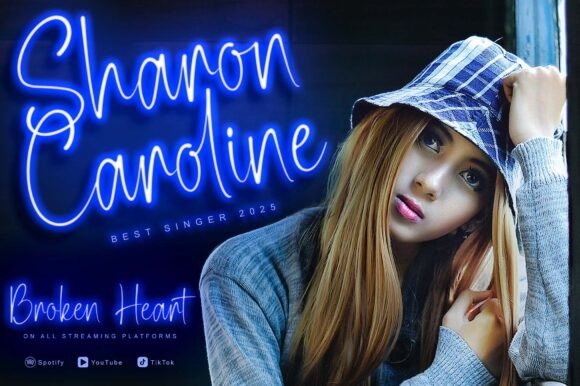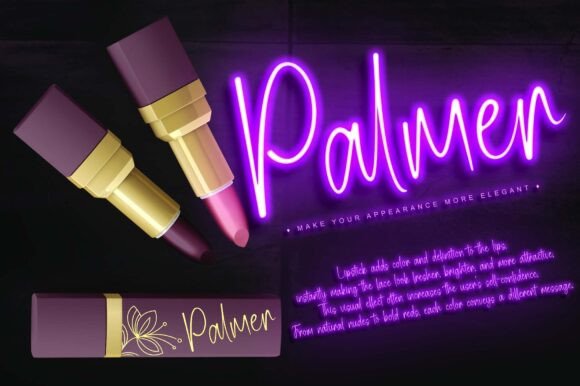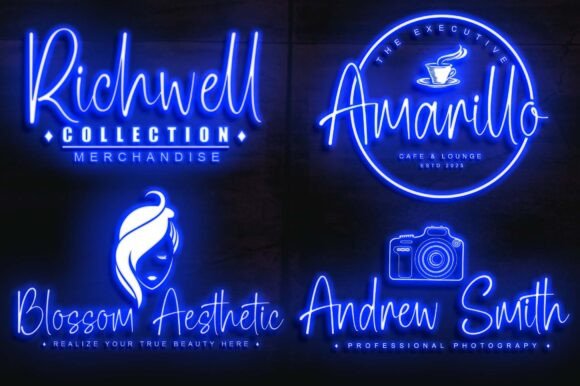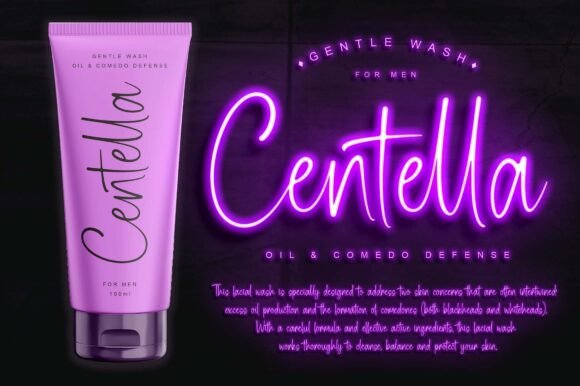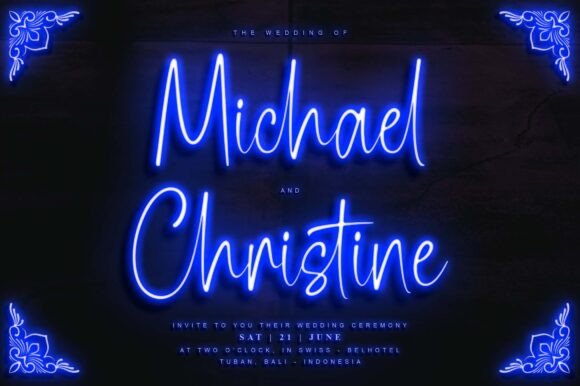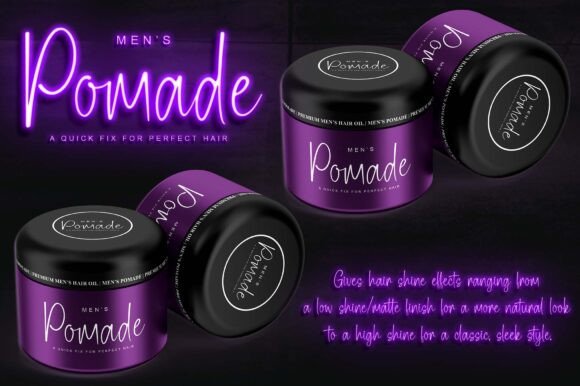
Discover the Perfect Blend of Elegance and Luxury with the Aesthetic Maryland Font
You know that moment when you’re brainstorming a new project and you need that one font that makes it all come together? For designers, finding the right font can be the difference between a good design and a great one. It’s the icing on the cake, the cherry on top, the sparkle that makes it Instagrammable.
| 👤 Author | Aveni Letter Type |
Enter the Aesthetic Maryland Font, a beautifully crafted typeface that adds a touch of luxury and elegance to any project. With ninety-three ligatures, this font is perfect for designers who want to take their work to the next level. Its neat kerning makes it a breeze to use, and its Instagram-worthy aesthetic makes it a must-have for company branding, logotypes, and more.
Aesthetic Maryland Font Features
- Unique Characteristics: Features a unique blend of classic and modern elements, with intricate details and elegant lines that evoke a sense of sophistication and refinement.
- Kerning and Ligatures: Includes advanced kerning and ligature pairs for precise control over letter spacing and improved readability.
Aesthetic Maryland Font Review
I recently had the chance to work with the Aesthetic Maryland Font, and overall, I was impressed with its unique style and versatility. ✨
- Distinctive Aesthetic: The font’s blend of modern and vintage elements gives it a distinct charm that’s perfect for projects that require a touch of elegance.
- High Customization Options: With a wide range of font weights, styles, and sizes, I was able to achieve the desired look for my design without any issues.
- Good for Headings and Titles: The font’s bold and striking nature makes it ideal for headings, titles, and other prominent text elements.
However, there are a few limitations that I encountered during my usage: ⚠️
- May Be Difficult to Read at Small Sizes: While the font looks great at larger sizes, it can become a bit challenging to read at smaller sizes, which might be a concern for some designers.
- Limited Support for Non-English Characters: I noticed that the font doesn’t support a wide range of non-English characters, which might be an issue for designers who work with multiple languages.
Overall, I think the Aesthetic Maryland Font is a solid choice for designers who are looking for a unique and stylish font. With its customization options and versatility, it’s perfect for a wide range of projects. However, designers should be aware of its limitations, especially when it comes to reading at small sizes and supporting non-English characters.
Aesthetic Maryland Font: A Practical Application Guide
For the best results, use Aesthetic Maryland Font in conjunction with other fonts that have a similar aesthetic. This font is particularly well-suited for:
- Travel and tourism marketing
Alternatives to Aesthetic Maryland Font for Designers
Compared to Aesthetic Maryland Font, Great Vibes has a more elegant and refined feel, with more connected loops and flourishes. It is also more suitable for formal and personal projects, whereas Aesthetic Maryland Font is more versatile and can be used in a wide range of projects.
Q: What is the recommended font size for optimal readability with Aesthetic Maryland Font?
The recommended font size for optimal readability with Aesthetic Maryland Font is between 12-14 points for body text, and 18-24 points for headings, depending on the design context and viewing distance.